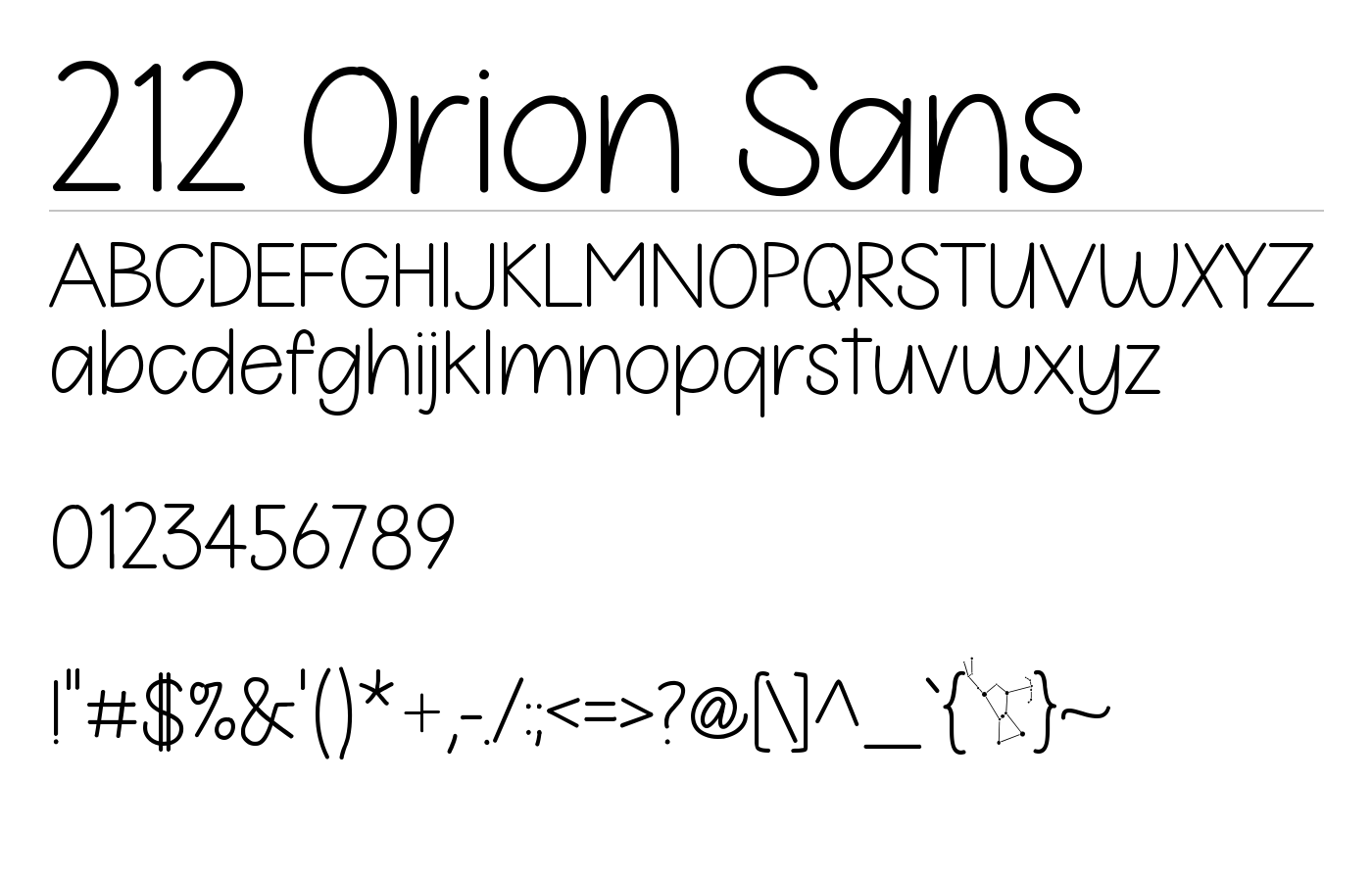
212 Orion Sans is a light, narrow sans serif font with a playful and approachable personality. Its tall x-height and slender, rounded letterforms create an airy, informal feel that works well for friendly branding, casual headlines, and creative projects seeking a modern yet whimsical touch. This font shines in designs that need a clean but gentle style, making it ideal for youth-oriented content, web use, and editorial layouts with a relaxed vibe.
212 Orion Sans Font
About 212 Orion Sans Font
| Font family | 212 Orion Sans Font |
| Designer | Elizabeth McLain |